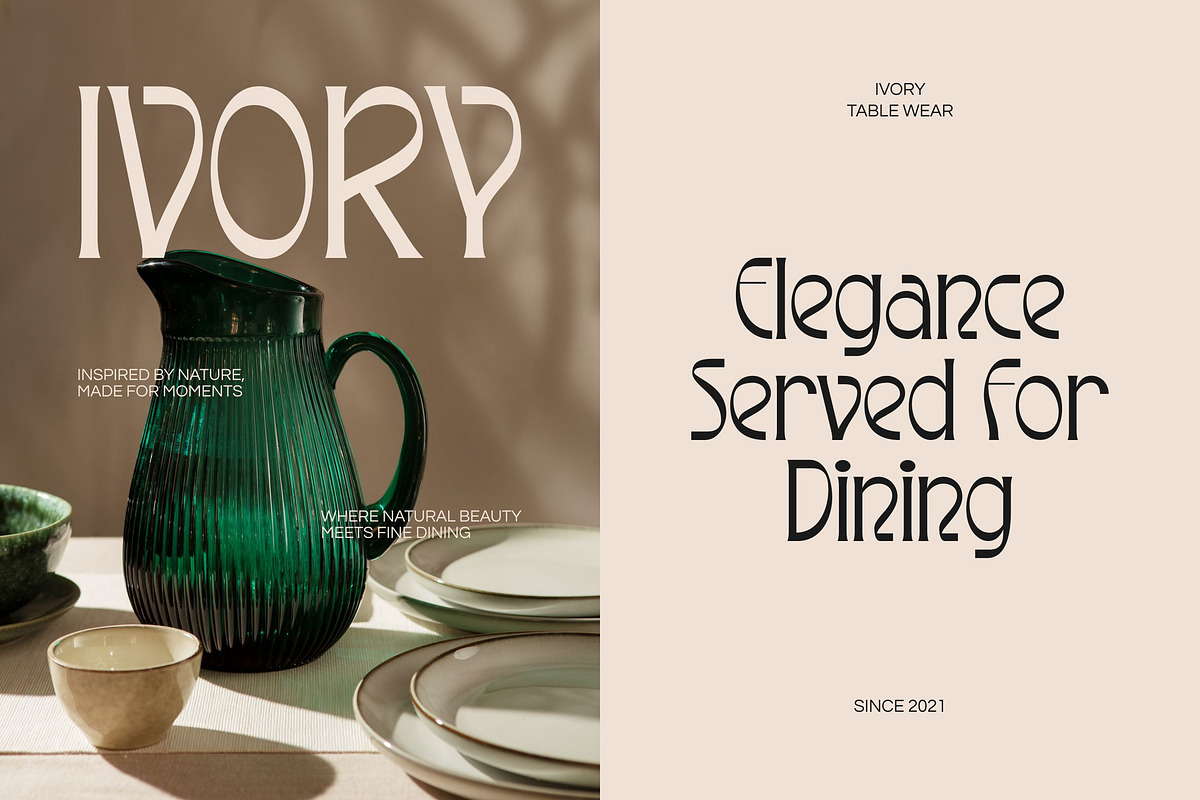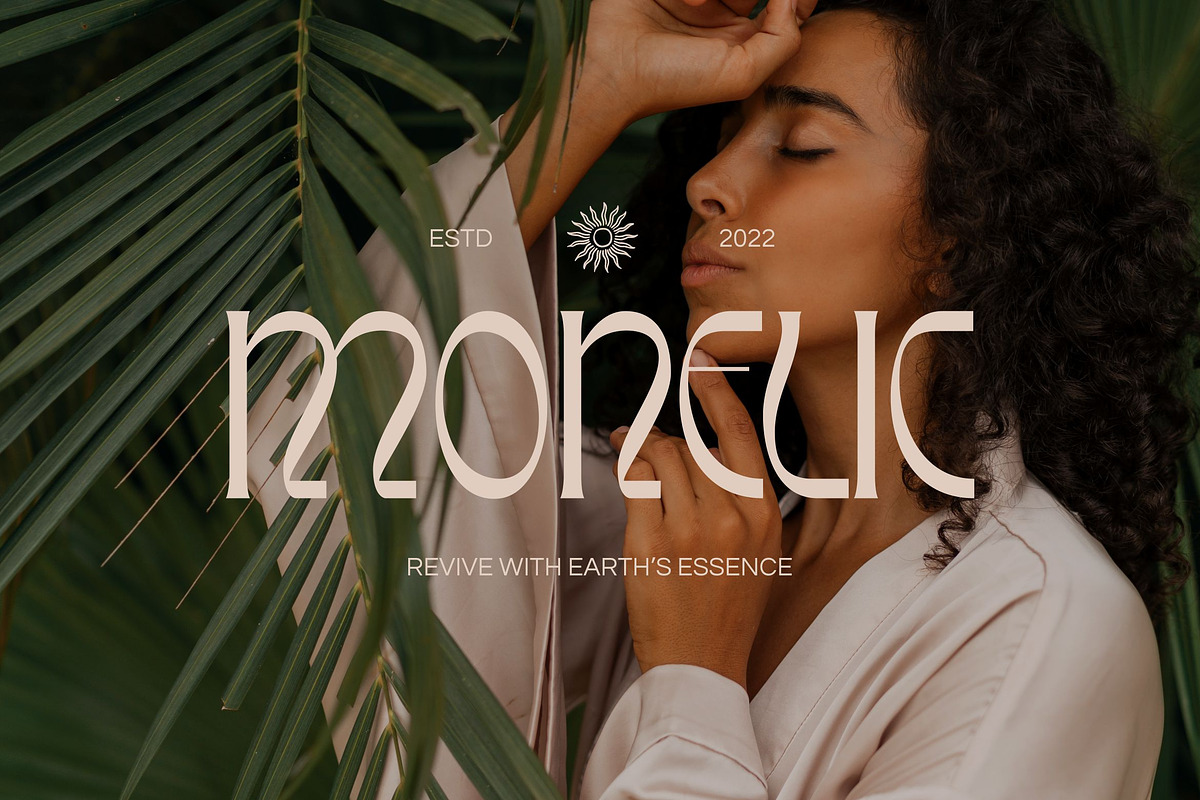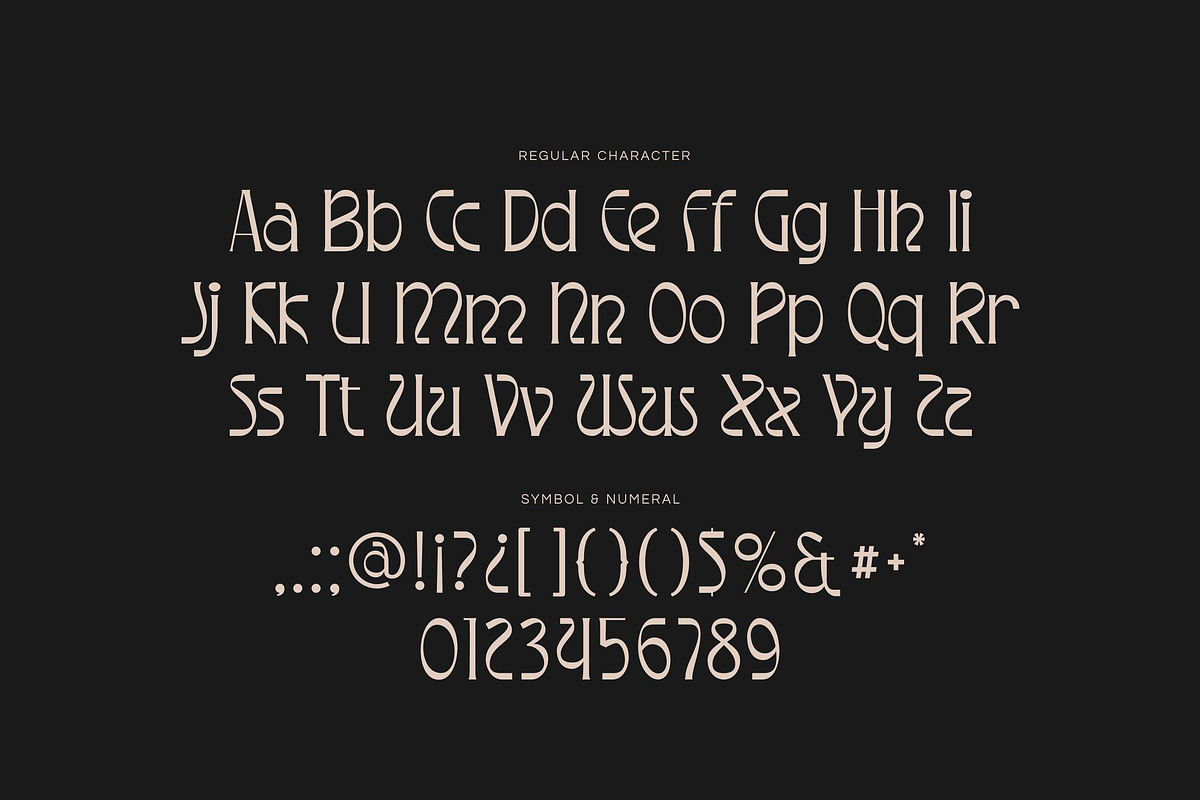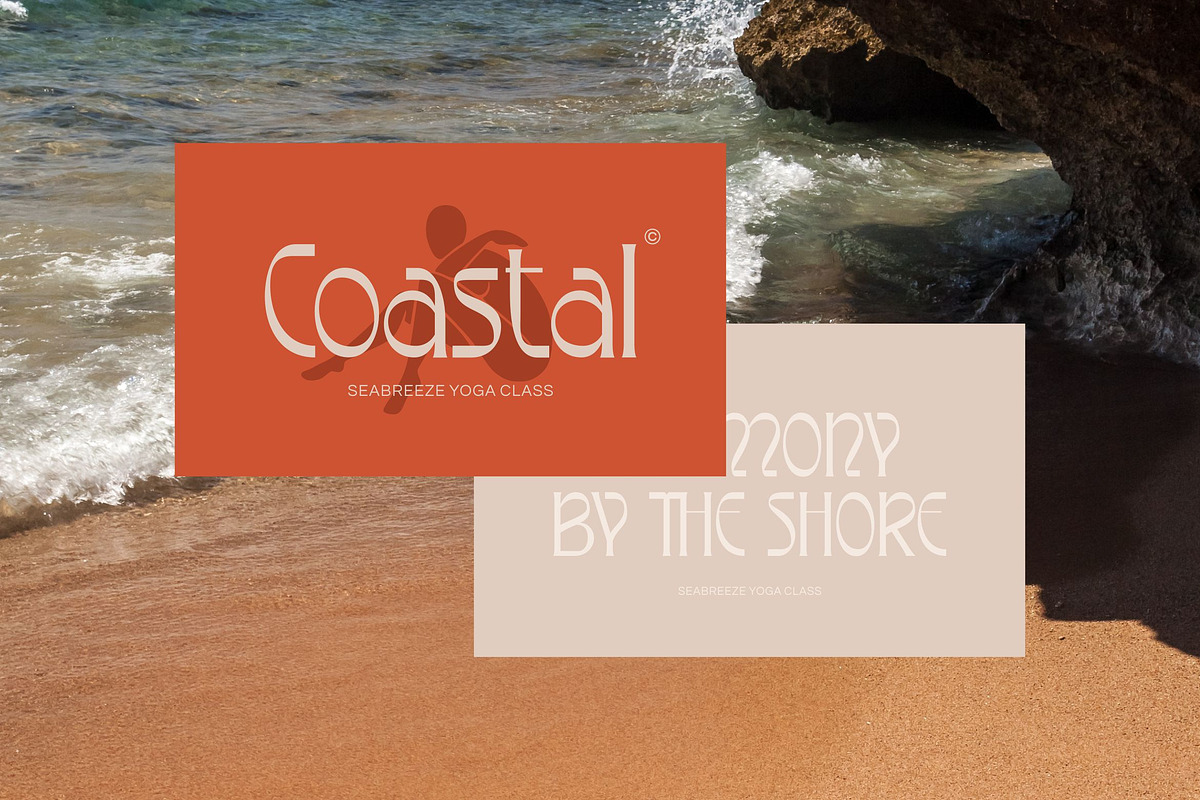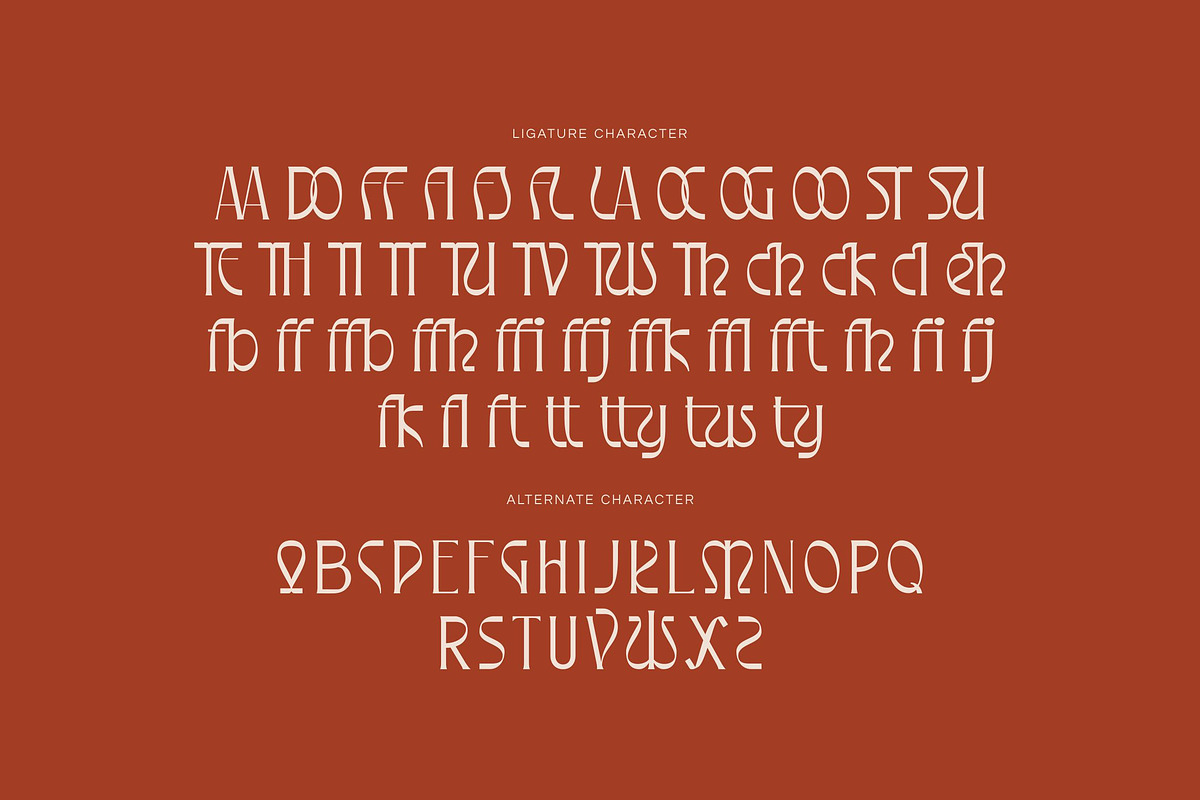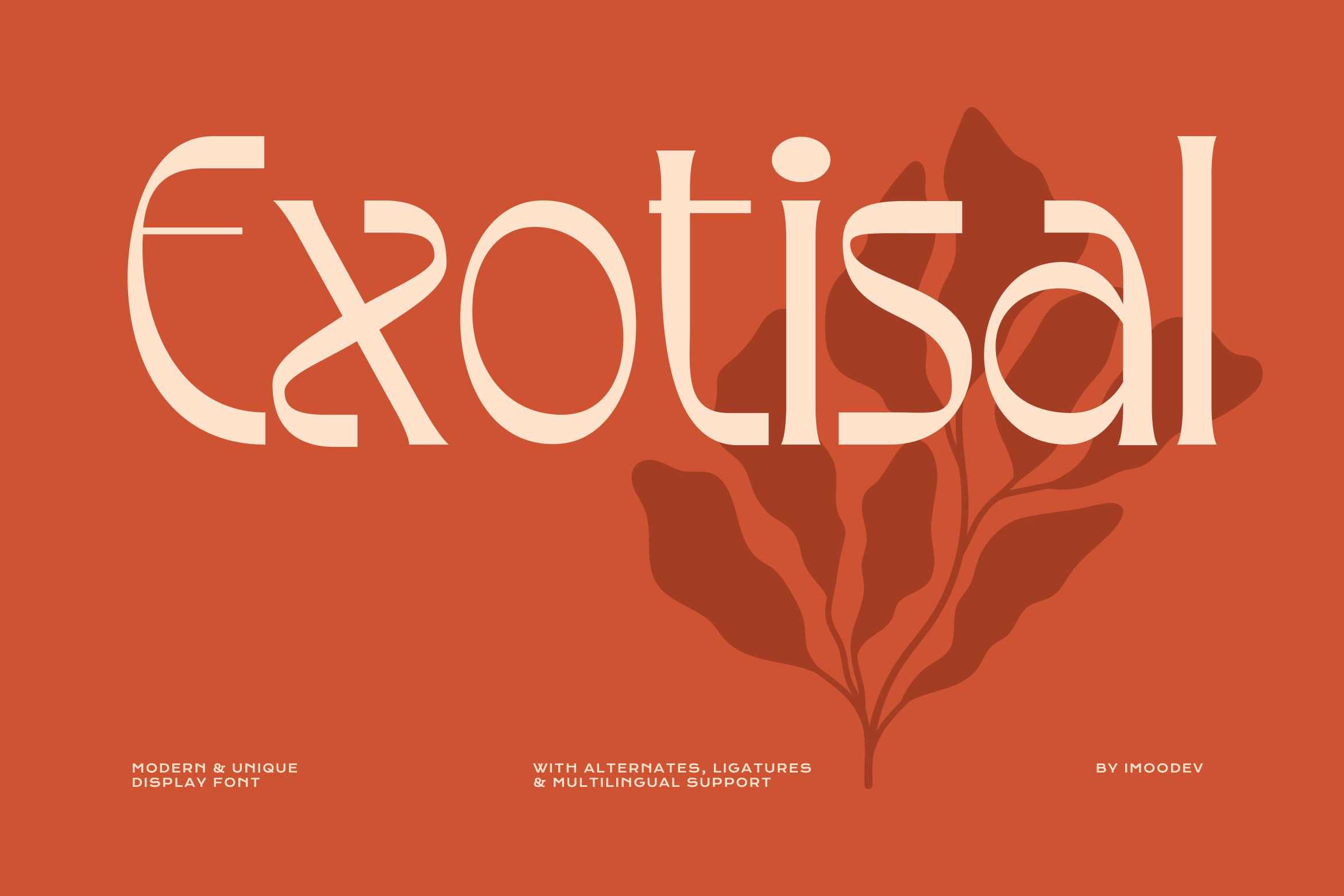
Exotisal - Botanical Display Font
Step into a world of sleek elegance and artistic flair with this elegant display typeface, Exotisal. Featuring clean geometric forms paired with stylish, flowing curves, this font strikes the perfect balance between retro art deco charm and contemporary minimalism.
This font combines curvy strokes with precise, sculpted cuts, creating letterforms that feel both natural and high end. It's perfect for beauty, wellness, coastal brands, lifestyle branding, luxury packaging, posters, headlines, fashion editorials, and creative projects seeking a balance between refinement and bold style.
Uppercase and Lowecase Characters.
Numerals and Punctuations.
Alternates and Ligatures.
Multilingual Support.